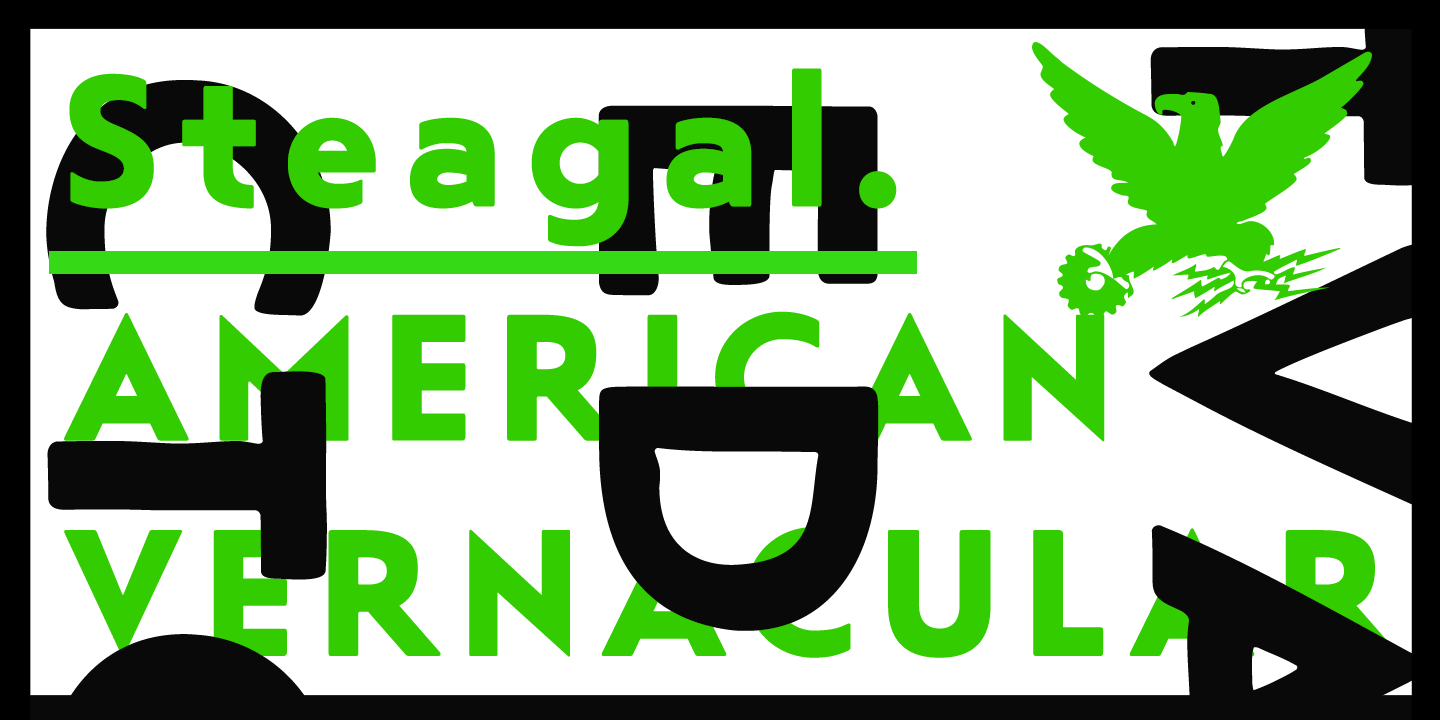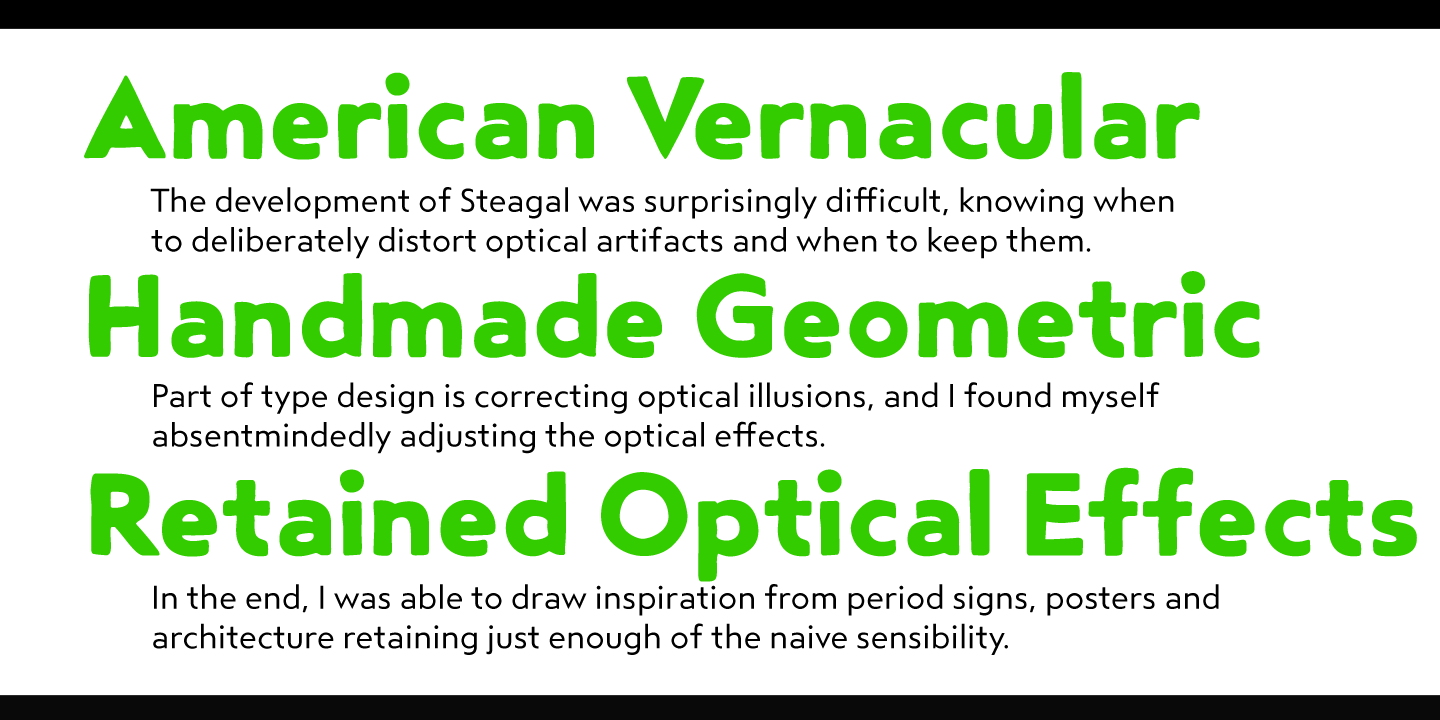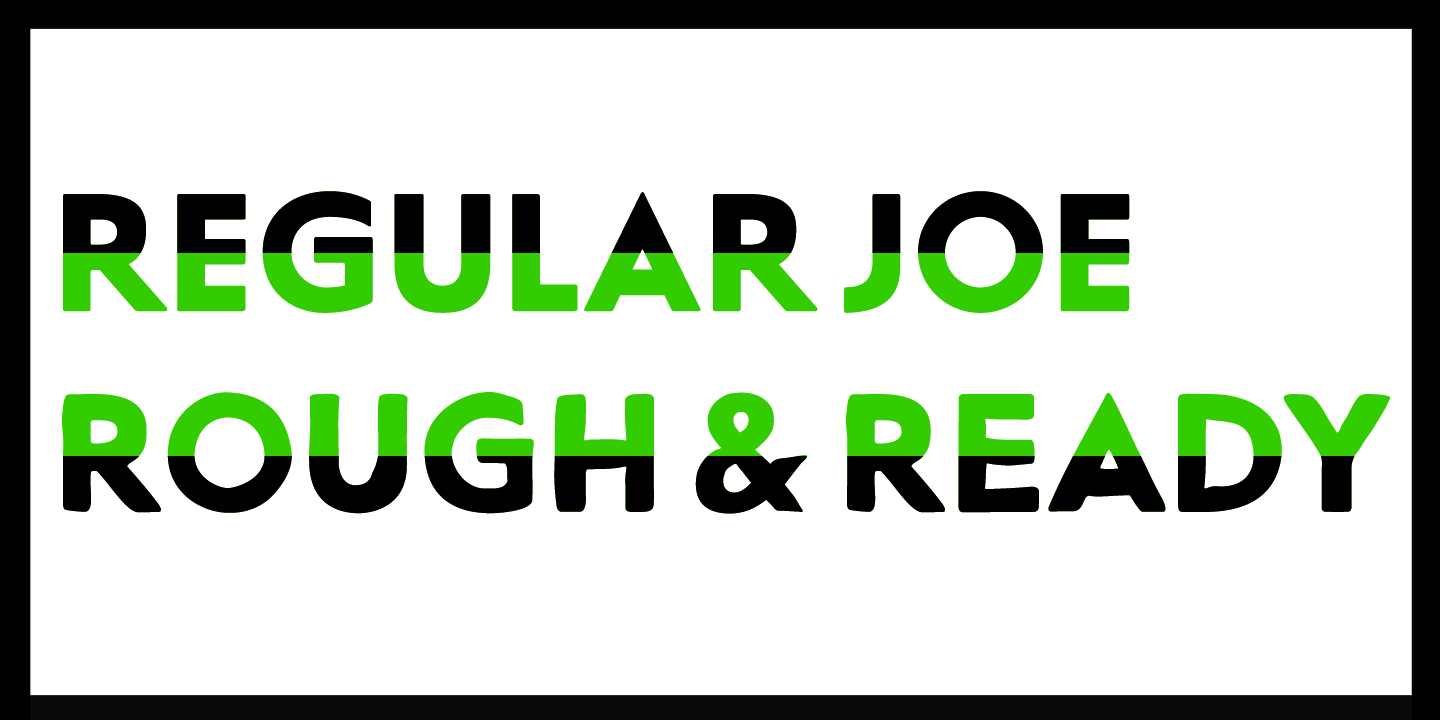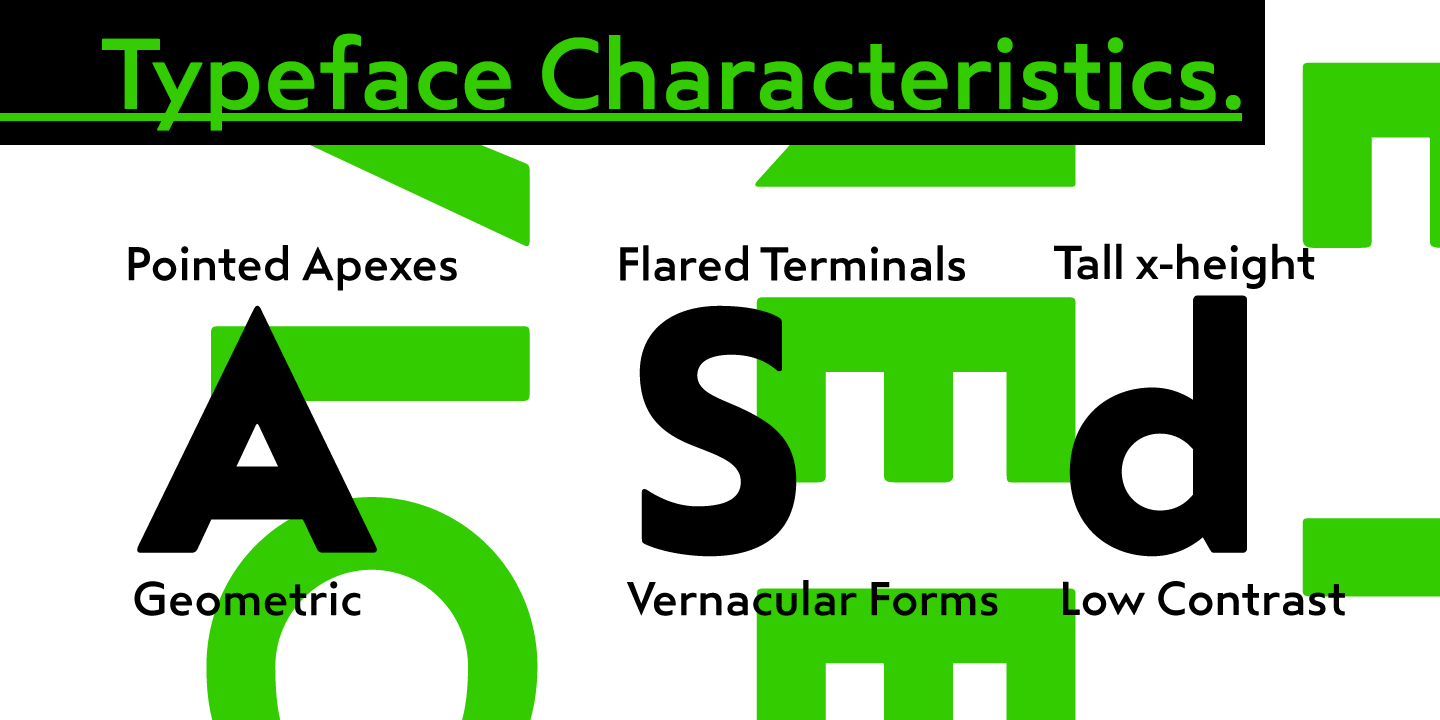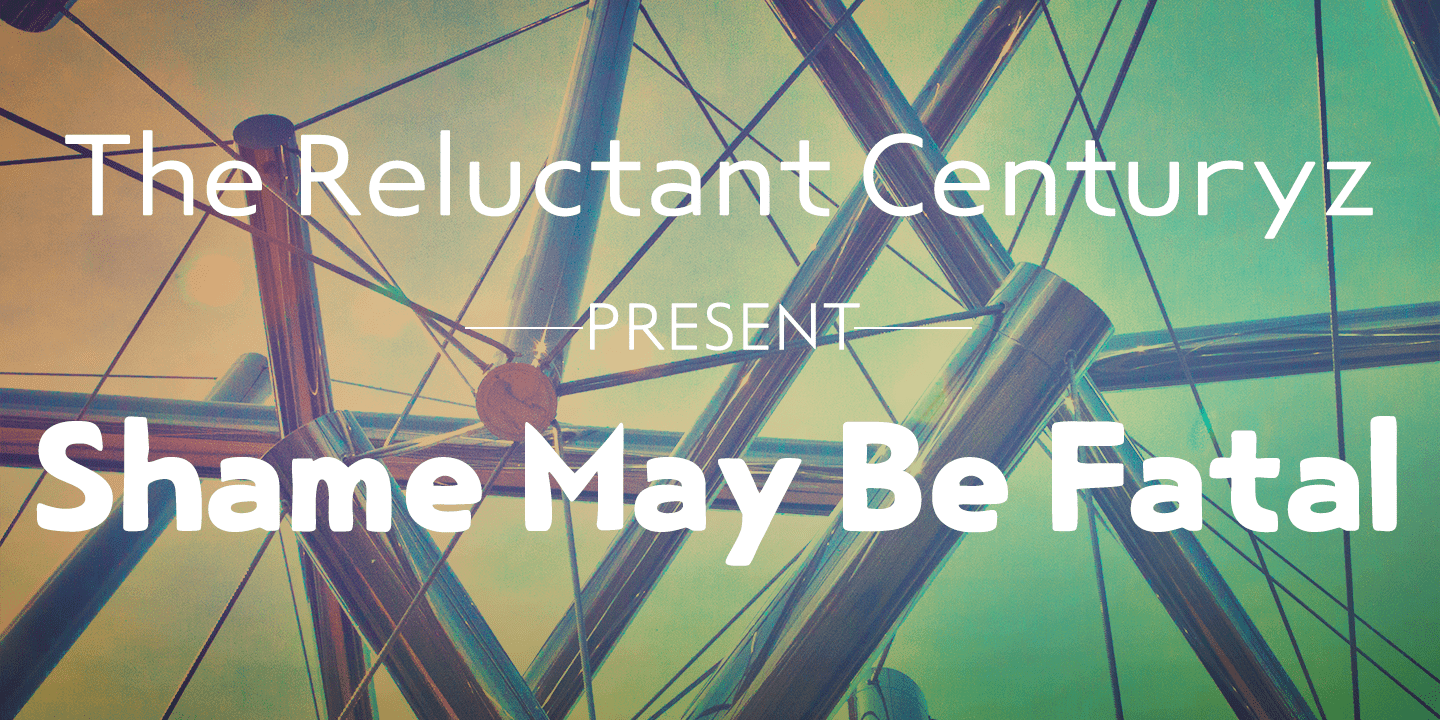
Steagal
When Robbie de Villiers and I began the Chatype project in early 2012 (a project which led one publication to label me the Edward Johnston of Chattanooga!), we started closely studying the vernacular lettering of Chattanooga. During that time, I also visited Switzerland, where I saw how designers were using a new, handmade aesthetic with a geometric base. I was motivated to make a new face combining some of these same influences. The primary inspiration for the new design came from the hand-lettering of sign painters in the United States, circa 1930s through 1950s. My Chatype research turned up a poster from the Tennessee Valley Authority in Chattanooga, Tennessee, which exhibited a number of quirks from the unique hand and style of one of these sign artists.
Completing the first draft of Steagal, however, I found that the face appeared somewhat European in character. I turned then to the work of Morris Fuller Benton for a distinctly American take and discovered a number of features that would help define Steagal as a ?1930s American? vernacular typeface--features I later learned also inspired Morris Fuller Benton's Eagle. The overall development of Steagal was surprisingly difficult, knowing when to deliberately distort optical artifacts and when to keep them in place. Part of type design is correcting optical illusions, and I found myself absentmindedly adjusting the optical effects. In the end, though, I was able to draw inspiration from period signs, inscriptions, period posters, and architecture while retaining just enough of the naive sensibility.
Steagal has softened edges, which simulate brush strokes and retain the feeling of the human hand. The standard version has unique quirks that are not too intrusive. Overshoots have almost been eliminated, and joins have minimal corrections. The rounded forms are mathematically perfect, geometric figures without optical corrections. As a variation to the standard, the ?Rough? version stands as the ?bad signpainter? version with plenty of character.
Steagal Regular comes in five weights and is packed with OpenType features. Steagal includes three Art Deco Alternate sets, optically compensated rounded forms, a monospaced variant, and numerous other features. In all, there are over 200 alternate characters. To see these features in action, please see the informative .pdf brochure. OpenType capable applications such as Quark or the Adobe Creative suite can take full advantage of the automatically replacing ligatures and alternates. Steagal also includes support for all Western European languages.
Steagal is a great way to subtly draw attention to your work. Its unique quirks grab the eye with a authority that few typefaces possess. Embrace its vernacular, hand-brushed look, and see what this geometric sans serif can do for you.